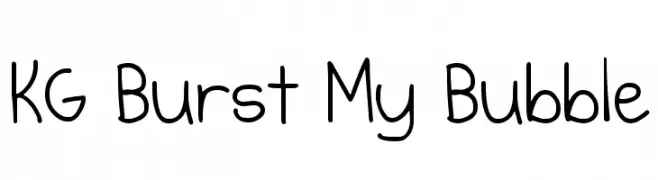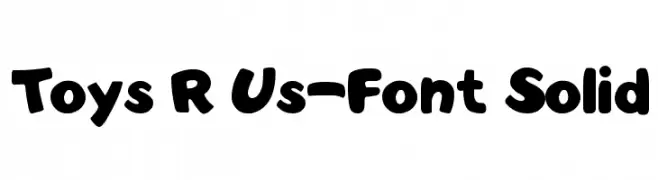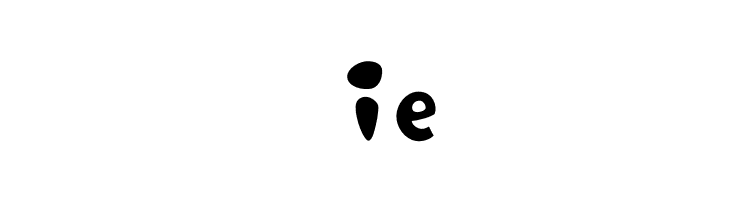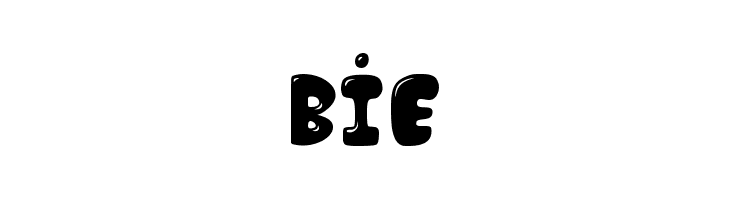
A playful, bold font with rounded edges and a bubbly style.
A playful, bold font with rounded, bubbly characters and unique cut-out details.
A playful, bubbly font with rounded, bold characters and whimsical patterns.
A playful, bold font with rounded, bubbly characters perfect for whimsical designs.
A bold, playful font with rounded, bubbly characters.
A bold, rounded font with a playful and bubbly style.
A playful, rounded font with bold, bubbly characters.
A playful, bold font with rounded, bubbly characters.
A bold, playful font with rounded edges and a bubbly appearance.
A playful, bold font with rounded, bubbly characters.
A playful, bubbly font with decorative drips and rounded characters.
A bold, playful font with a bubbly, rounded style.
A playful, bold font with rounded, bubbly characters and decorative elements.
A playful, bold font with rounded, bubbly letterforms.
A playful, bold font with rounded, bubbly characters ideal for retro designs.
A bold, playful font with rounded strokes and a bubbly appearance.
A bold, playful font with rounded, bubbly characters.
A playful, bold font with rounded, bubbly characters perfect for fun and creative projects.
A bold, playful font with rounded, bubbly characters ideal for fun and retro designs.
A bold, playful handwritten font with a bubbly, cartoon-like style.
A playful, bold font with rounded, bubbly strokes.
A playful, bold font with rounded, bubbly characters ideal for creative projects.
A playful, bold font with rounded, bubbly characters perfect for fun and creative projects.
A playful, bold font with rounded, bubbly characters.
A bold, playful font with rounded, thick strokes and a bubbly appearance.
A playful, bubbly typeface with rounded characters and decorative dots.
A playful, bold font with rounded, bubbly characters and a hand-drawn feel.
A playful, bold font with bubbly, rounded characters and a whimsical style.
A playful, bold font with rounded, bubbly characters ideal for casual use.
A playful, bold font with rounded, bubbly characters ideal for fun and whimsical designs.
A bold, playful font with thick, rounded characters and a bubbly appearance.
A bold, playful font with rounded, bubbly characters.
A playful, bold font with rounded, bubbly characters ideal for fun projects.
A bold, playful font with rounded, bubbly characters ideal for lively designs.
A bold, playful font with rounded, bubbly characters and a retro vibe.